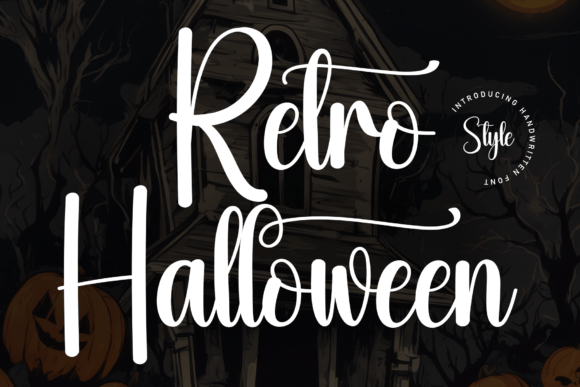
Unleash the Hauntingly Beautiful Retro Halloween Font: The Perfect Font for Your Creepy Creations
Step into the realm of the supernatural and embrace the enchanting aura of the Retro Halloween font. This meticulously crafted script font exudes an eerie charm that is sure to cast a spell on your creative projects. Whether you're crafting spine-chilling invitations for your Halloween party, designing captivating logos for your horror-themed brand, or creating spellbinding social media posts, Retro Halloween will add an otherworldly touch to your every word.
With its graceful curves and bewitching flourishes, Retro Halloween is not just a font; it's a portal to a world of enchantment. Its intricate details and striking presence will make your designs stand out from the mundane, leaving your audience spellbound. Experience the thrill of crafting designs that ooze mystery and intrigue, designs that whisper tales of haunted mansions, ghostly apparitions, and witches' covens under the pale moonlight.
Let Retro Halloween be your creative companion as you conjure up hauntingly beautiful invitations, posters, flyers, and social media graphics that will ignite the imagination and send shivers down the spines of your audience. Its versatility extends beyond the realm of Halloween, making it an ideal choice for projects ranging from retro-inspired designs to vintage-themed creations.
With Retro Halloween by your side, you'll possess the power to transform your creative visions into tangible masterpieces. Its captivating presence will add a touch of magic to your designs, leaving your audience spellbound and eager for more. Embrace the allure of the unknown and let Retro Halloween guide you on an enchanting journey through the realm of creativity.